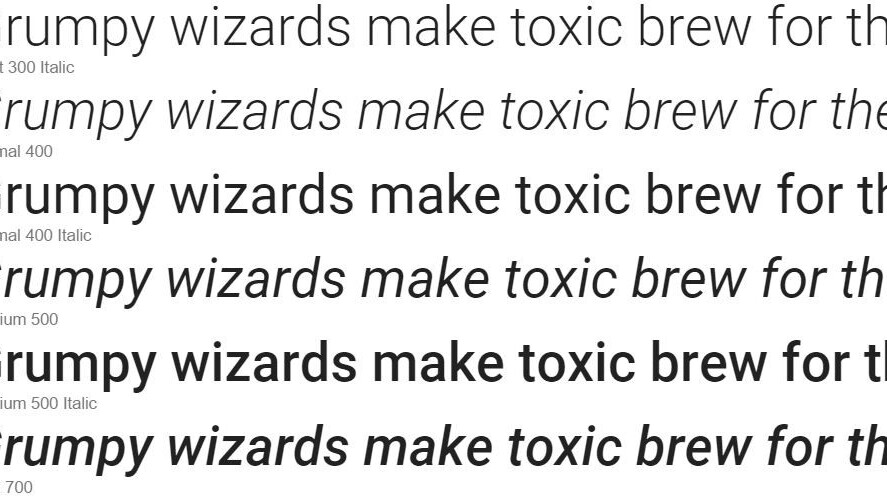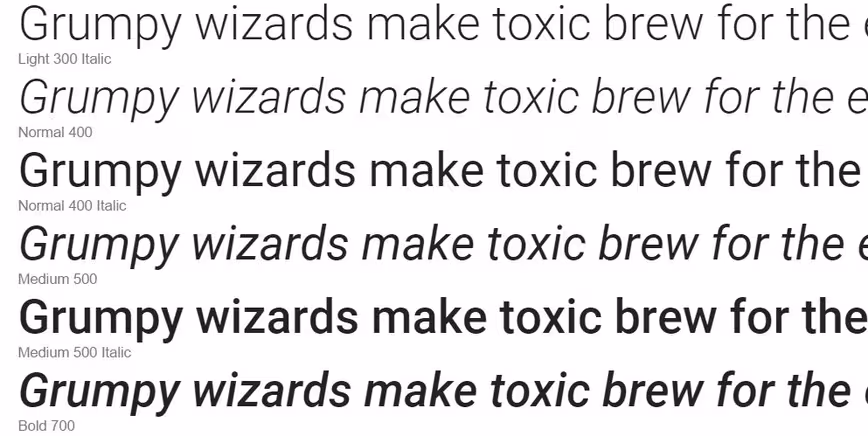
Google has made its Roboto font totally open source
Love it or hate it, Google’s Roboto font is here to stay, and now Google wants to share it more openly with the world.
Additionally, Google has upgraded the font to include all Latin, Cyrillic and Greek Characters, more than tripling the number of glyphs provided with Roboto.
The default font in Android, Chrome OS and most recently, YouTube, Roboto was first introduced with Ice Cream Sandwich in 2011. Google says the project involved close collaboration between the Material Design, Internationalization Engineering, Google Fonts and Android teams.